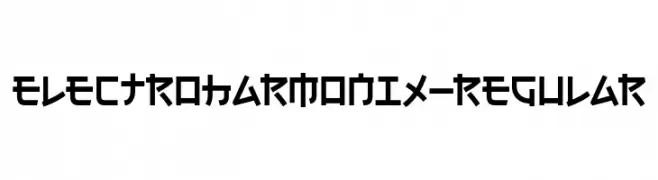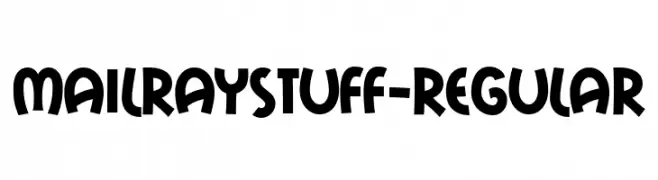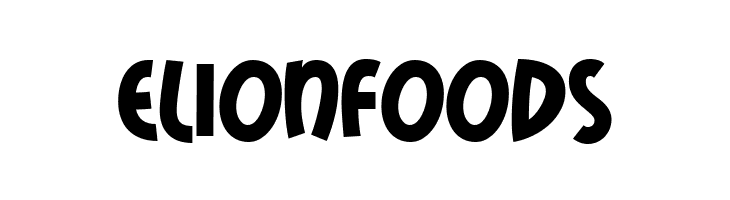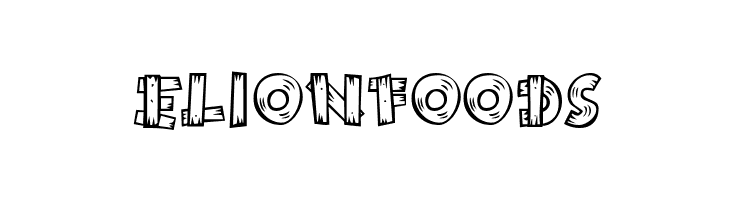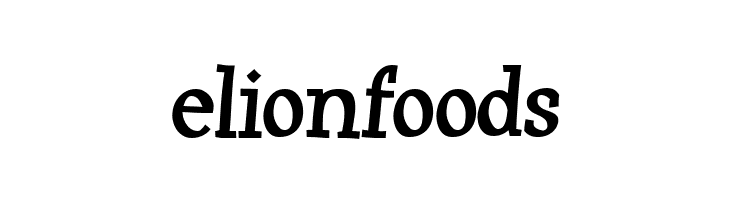
• Xirod-Regular
A futuristic, geometric font with sharp angles and clean lines.
• MailRayStuff-Regular
A bold, playful font with a retro-modern style and rounded characters.
• BurnstownDam-Regular
A playful, hand-drawn font with a rustic, wood-textured style.
• SybilGreen-Regular
A playful and whimsical font with bold, geometric shapes and unique curves.
• Huxtable-Regular
A bold, dynamic font with a slight slant and moderate stroke contrast.
• CrystalRadioKit-Regular
A bold, geometric font with a modern and striking design.
• BullpenHv-Regular
A bold, slab serif font with a strong, commanding presence.
• BullpenHv-Italic
A bold, italicized font with strong strokes and a dynamic presence.
• BullpenThreeD-Regular
A bold, three-dimensional font with shadow effects for dynamic designs.
• Electroharmonix-Regular
A bold, geometric font with a modern, tech-inspired design.